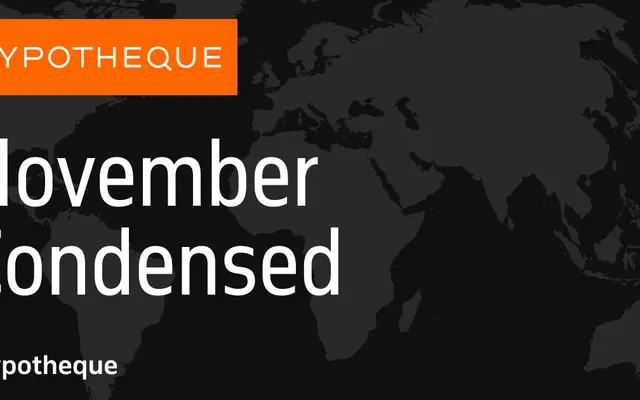
November Condensed
A condensed grotesque from Typotheque, part of the November system spanning three widths and nine weights with matching italics and a variable font.
November Condensed sits within a large type system that covers Condensed, standard and Compressed widths, each running from Hairline to Black with full italic counterparts. The family is also available as a variable font, giving designers fine control across the weight and width axes. Its neutral grotesque character makes it well-suited to editorial layouts, branding and display settings where economy of space is needed.
November Condensed is a condensed grotesque sans-serif, part of a larger system that includes standard and compressed widths across a broad weight range, consistent with the Typotheque neo-grotesque tradition.